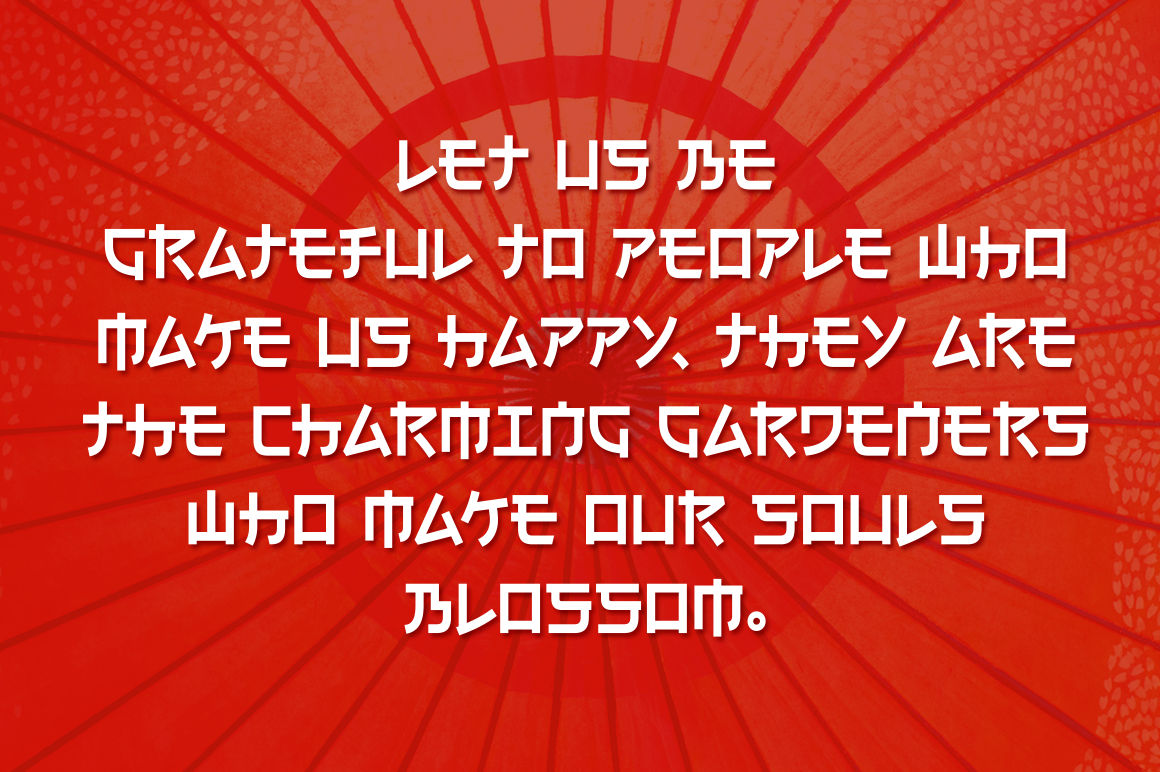
Electroharmonix Font
Electroharmonix Font is a free, unique, and cool font. This font is FREE to Download and suitable for designs such as t-shirts, sportswear, posters, logos, advertisements, clothing, and more.
Electroharmonix Font is a free, unique, and cool font. This font is FREE to Download and suitable for designs such as t-shirts, sportswear, posters, logos, advertisements, clothing, and more. Whatever the topic, this font will be a great asset to your font collection, as it has the potential to enhance any creation.